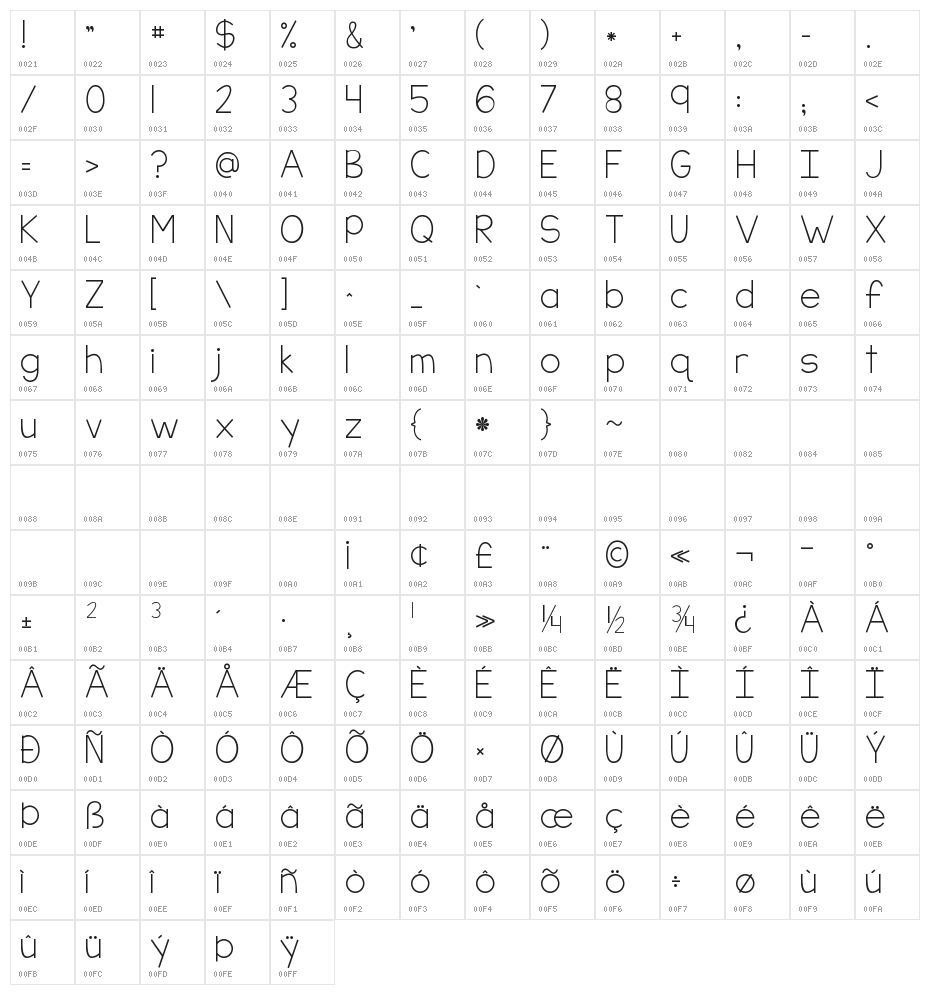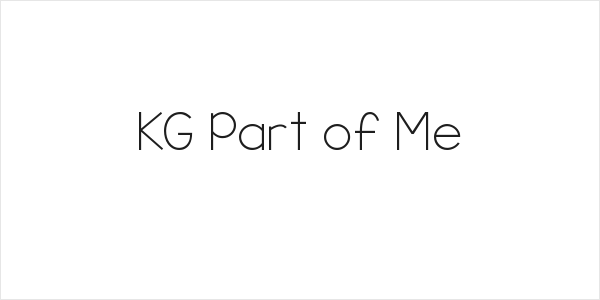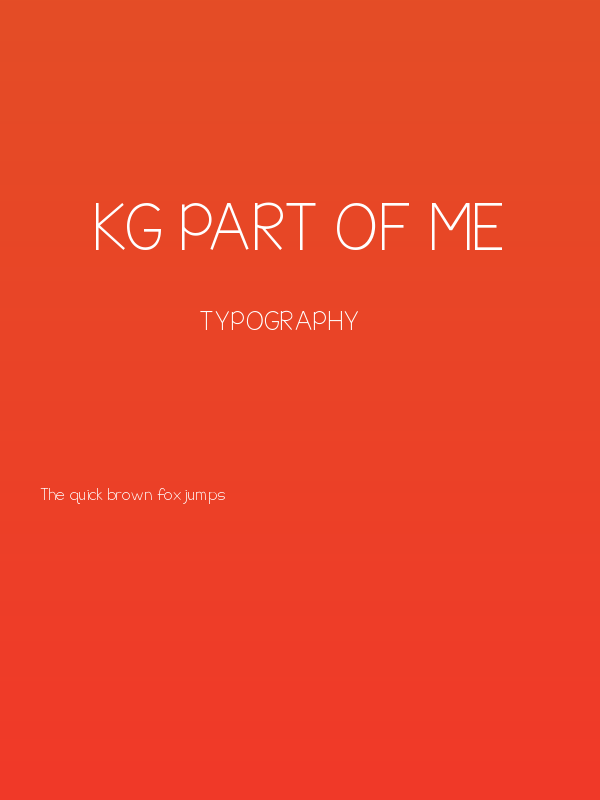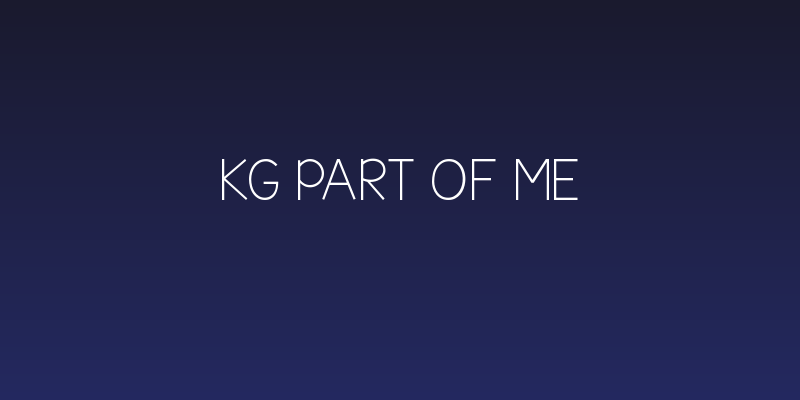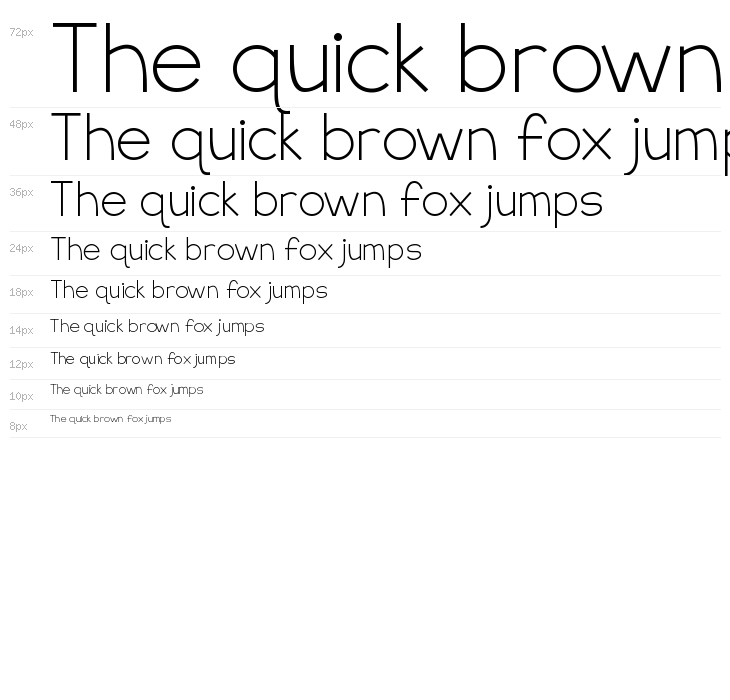
KG Part of Me Font
KG Part of Me Description
This font features a clean and modern sans-serif style with a geometric structure. The characters are evenly spaced, providing a balanced and harmonious appearance. The uppercase letters have a uniform height, while the lowercase letters maintain a consistent baseline, enhancing readability. The numerals are distinct and align well with the overall design, making them suitable for various applications. Special characters are included, offering versatility for different contexts. The font's simplicity and clarity make it ideal for both digital and print media, ensuring legibility across different sizes and formats.